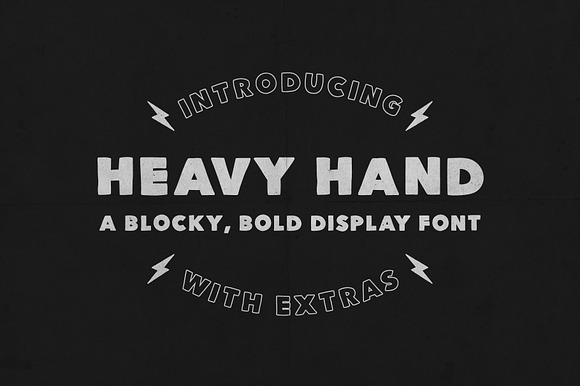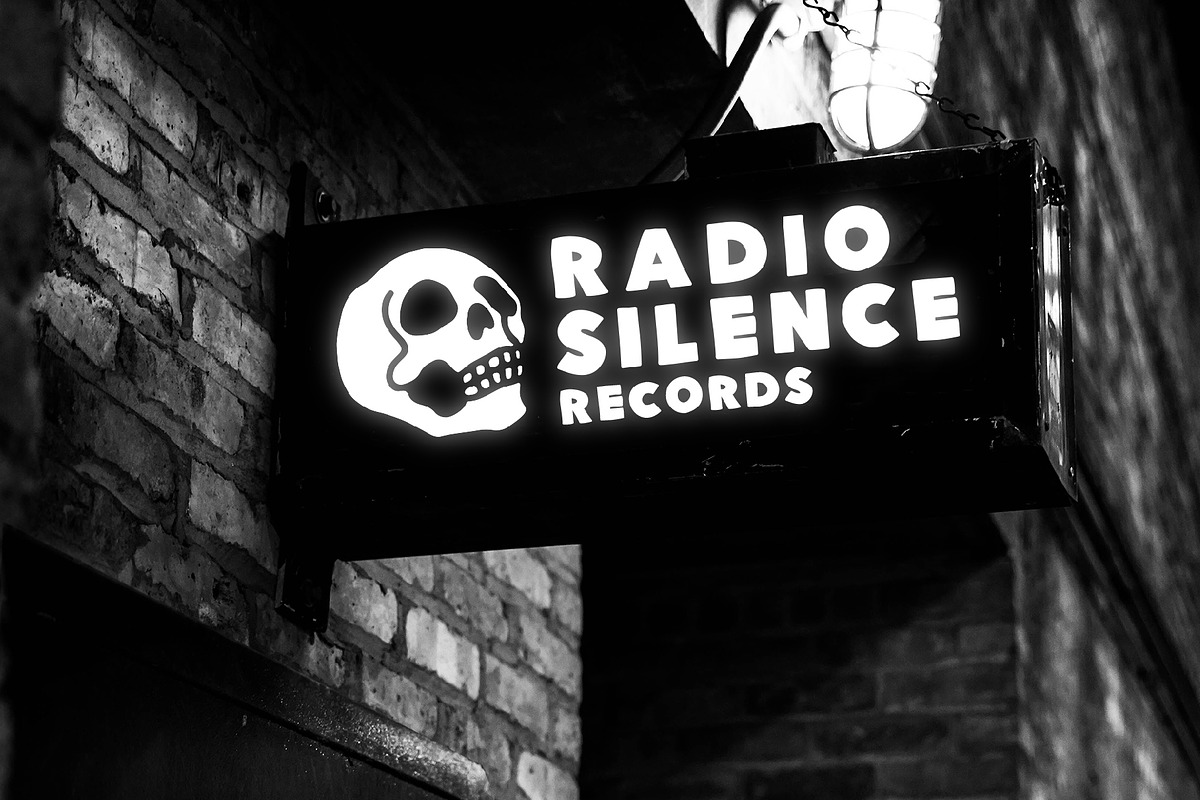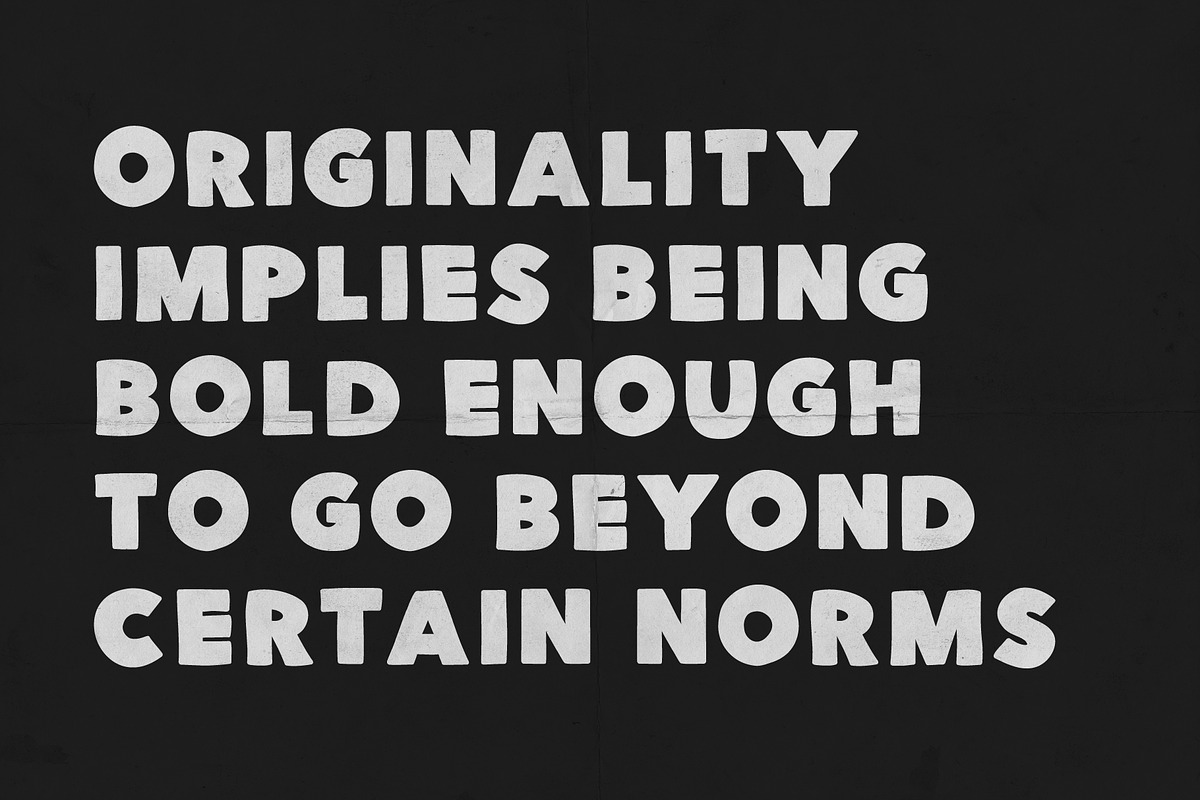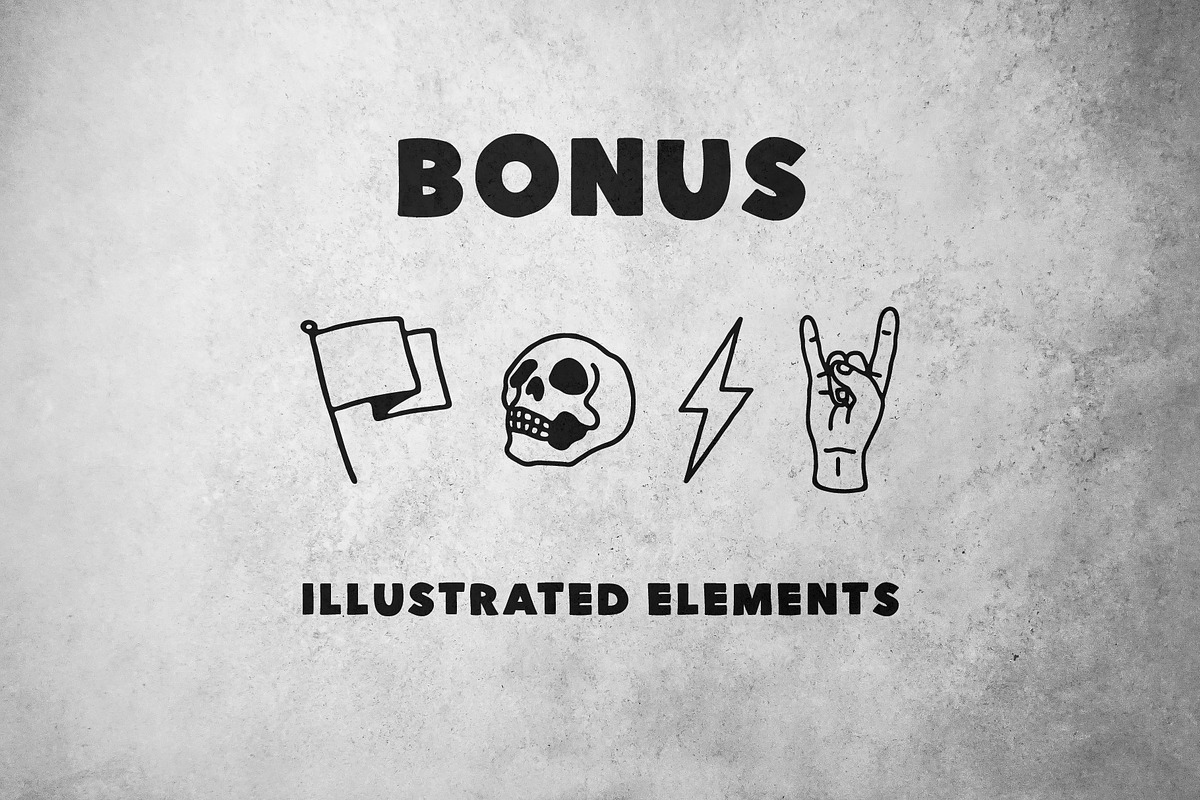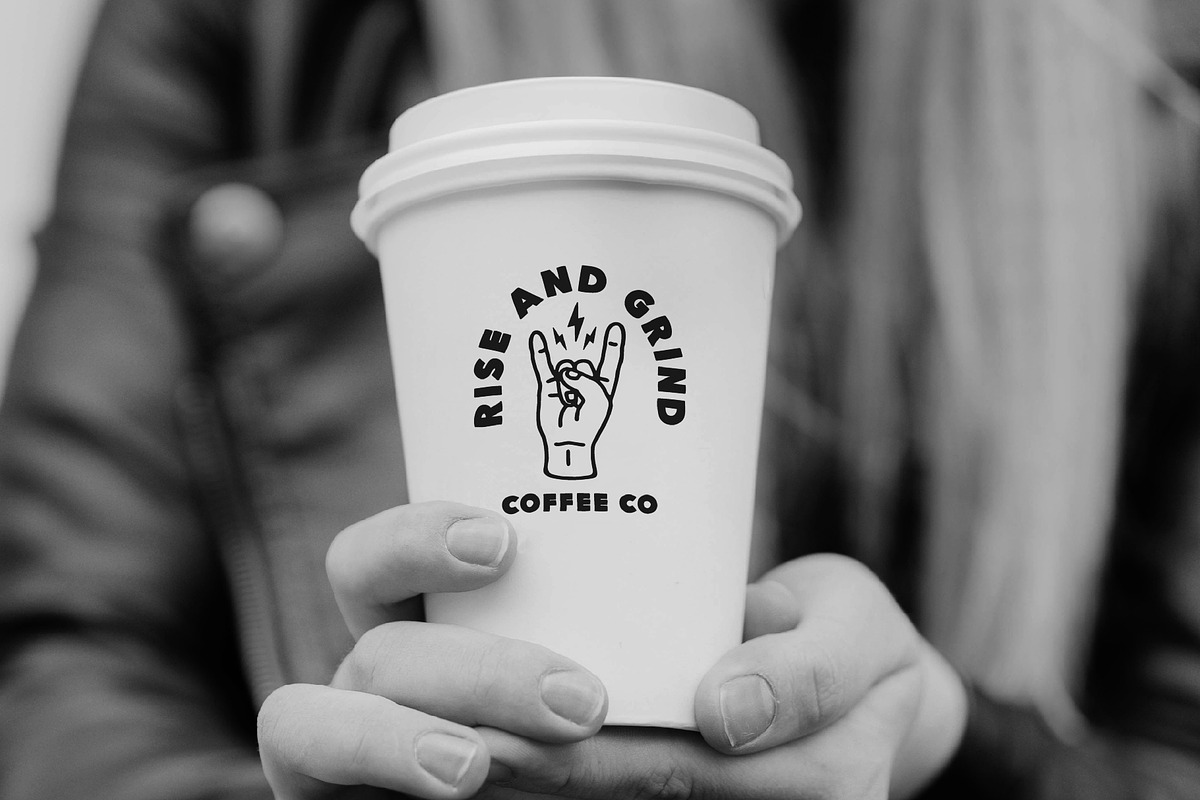
Heavy Hand - a Bold Font with Extras
Drawn with a deliberately heavy hand, meet... Heavy Hand! A super dense, sans with an irregular twist, ideal for attention grabbing headlines, loud posters, playful signage and more. Accompanied by a selection of authentically rough illustrated extras that pack an extra rock and roll punch.
Black, Black Italic, Outline and Outline Italic